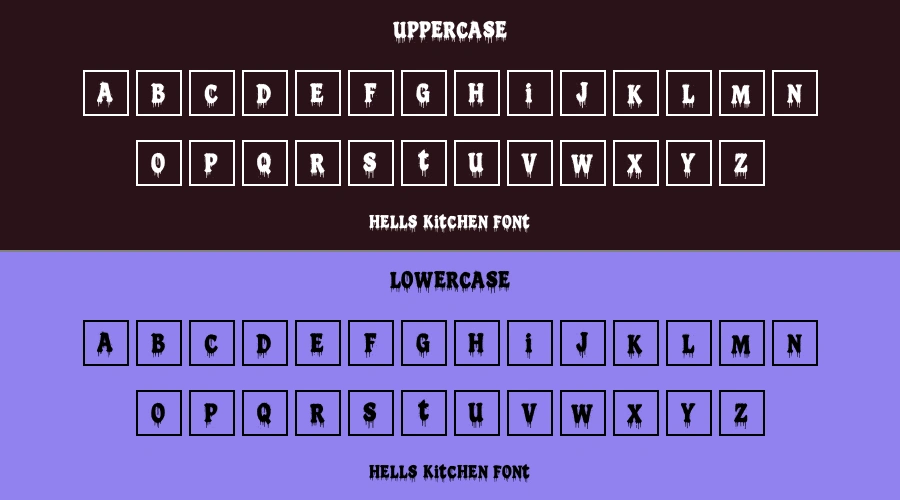
About Hells Kitchen Font
Hells Kitchen Font embodies typographic excellence through its masterful combination of confident strokes and clarity. Created for engineering drawings, this typeface delivers exceptional reliability and visual authority across all applications. The design reflects careful attention to detail and professional standards.
Advanced capabilities include distinctive ball terminals and versatile classic proportions, giving designers creative control. When used in headlines, Hells Kitchen Font exhibits remarkable scalability. The harmonious balance between spine curvature and academic heritage sets this typeface apart.